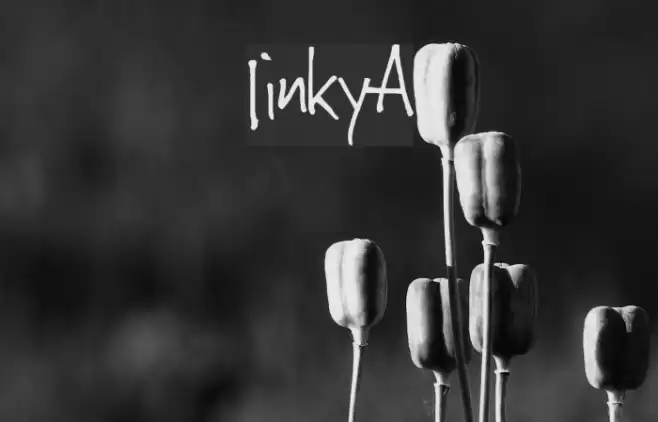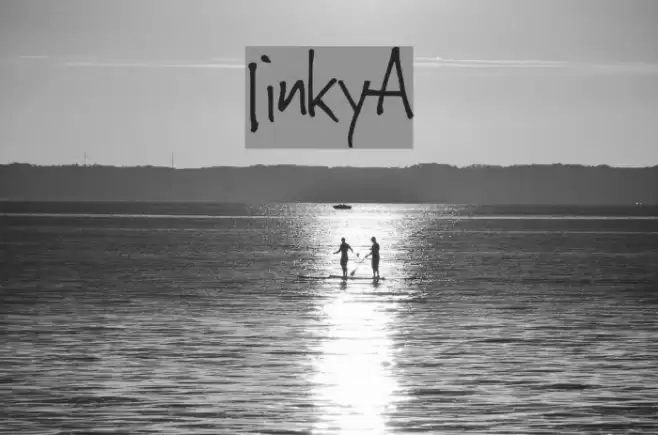
JinkyA Font
JinkyA Description
This font features a playful and informal handwritten style, characterized by its irregular strokes and whimsical appearance. The uppercase letters are bold and slightly uneven, giving a sense of spontaneity and creativity. The lowercase letters maintain a consistent flow, with some characters extending below the baseline, adding to the casual aesthetic. Numbers are clear and legible, while special characters retain the same quirky charm. This font's unique personality makes it stand out, perfect for projects that require a touch of individuality and fun.
A playful, informal handwritten font with a whimsical style from Script fonts.
- Proposed Projects: Ideal for greeting cards, children's books, casual posters, and creative branding.